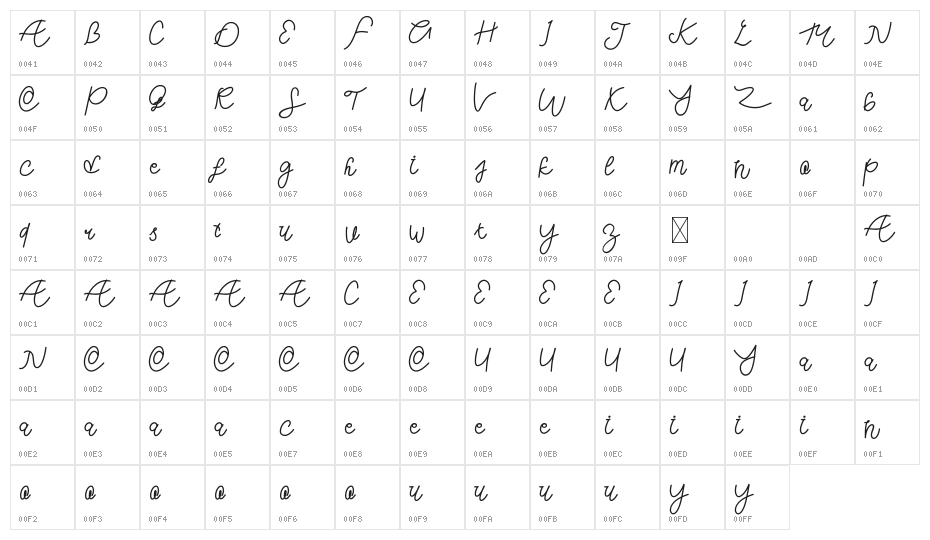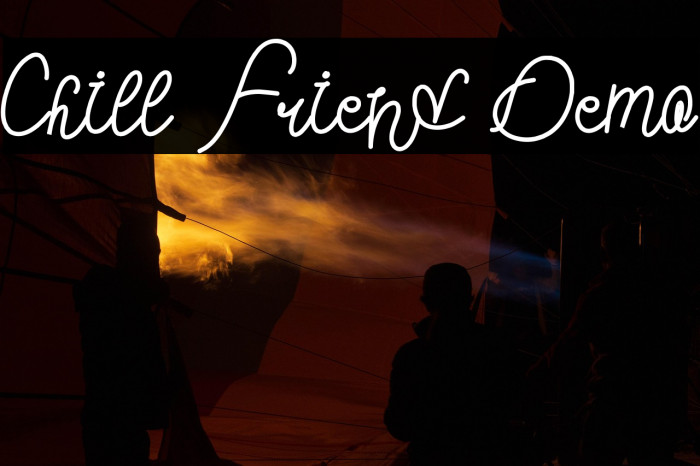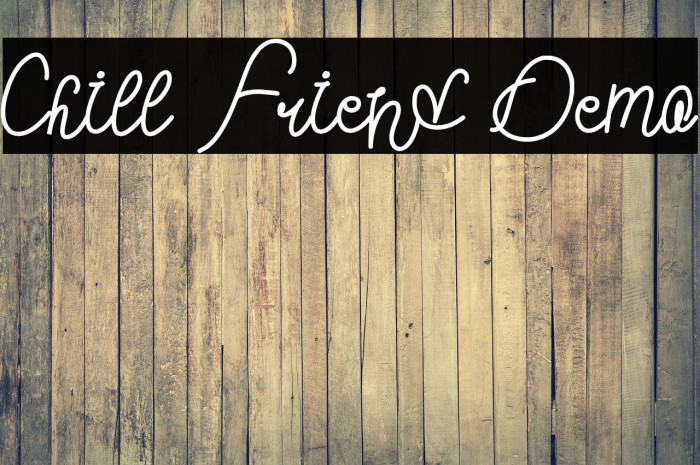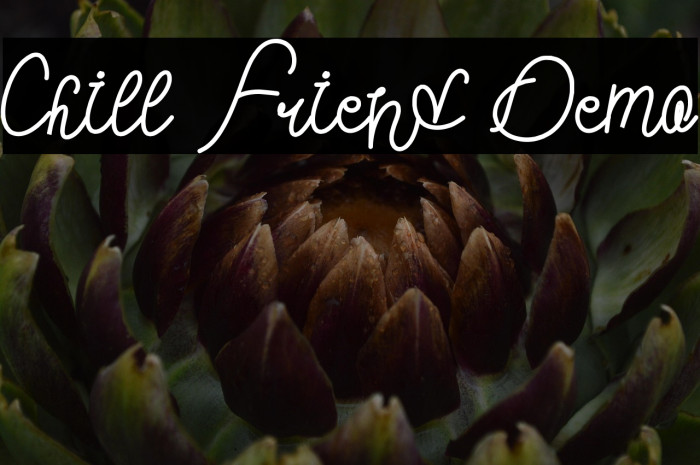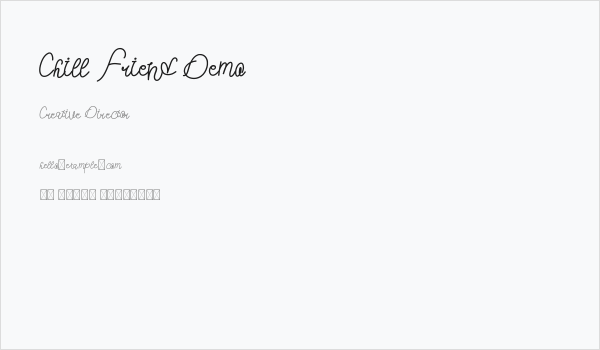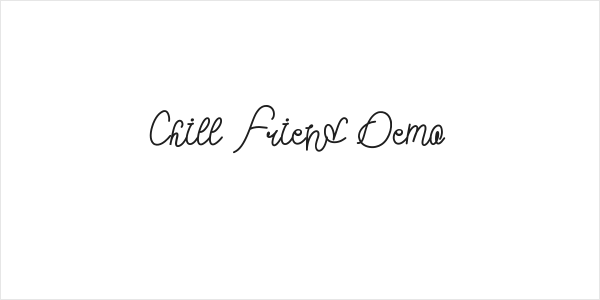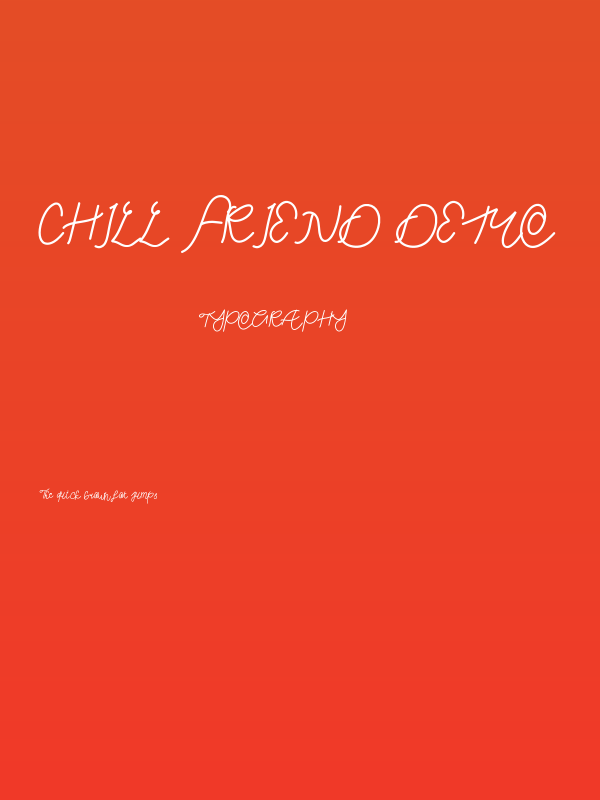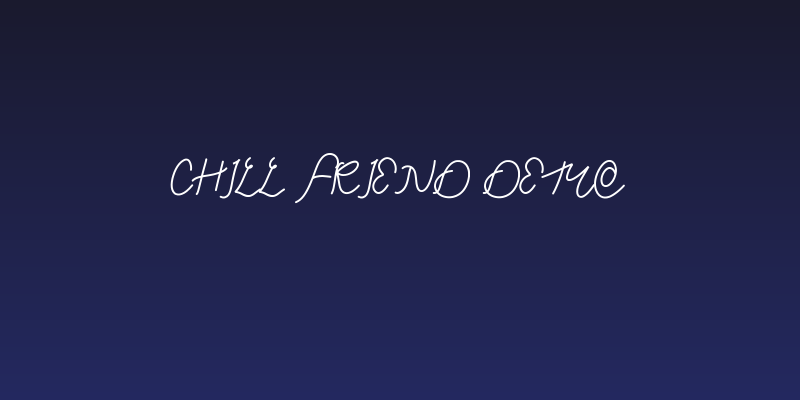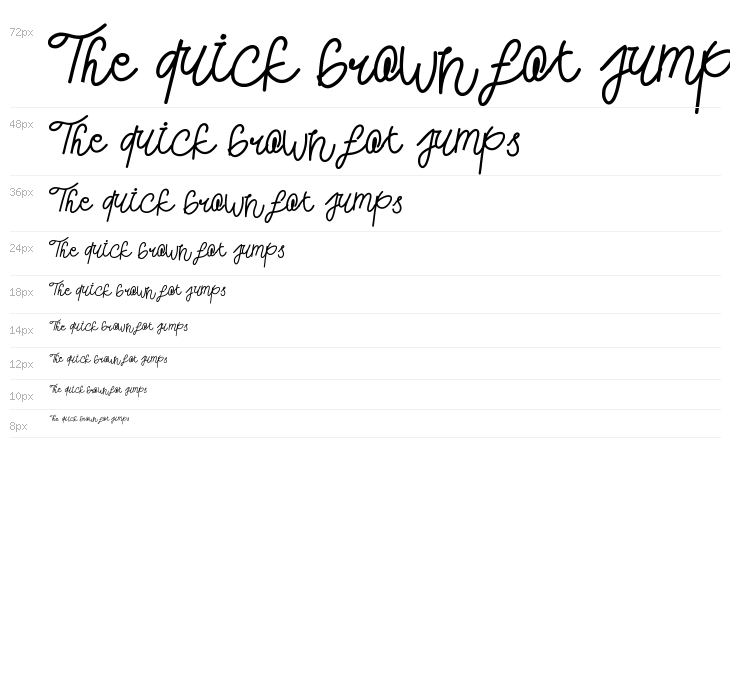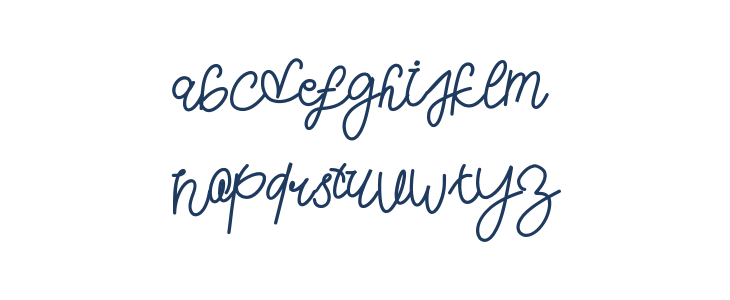
Chill Friend Demo Font
Chill Friend Demo Description
This font features a playful and relaxed script style, characterized by its flowing, cursive letters that mimic the fluidity of handwriting. The uppercase and lowercase letters are interconnected, creating a seamless and harmonious appearance. The strokes are smooth and rounded, giving the font a friendly and approachable feel. The characters are slightly slanted, enhancing the casual and informal vibe. This font is ideal for projects that require a personal touch, such as invitations, greeting cards, or branding for lifestyle products. Its unique style makes it stand out while maintaining readability.
| Use Case | Headlines, Invitations, Personal projects |
| Proposed Projects | Ideal for invitations, greeting cards, lifestyle branding, and personal projects. |